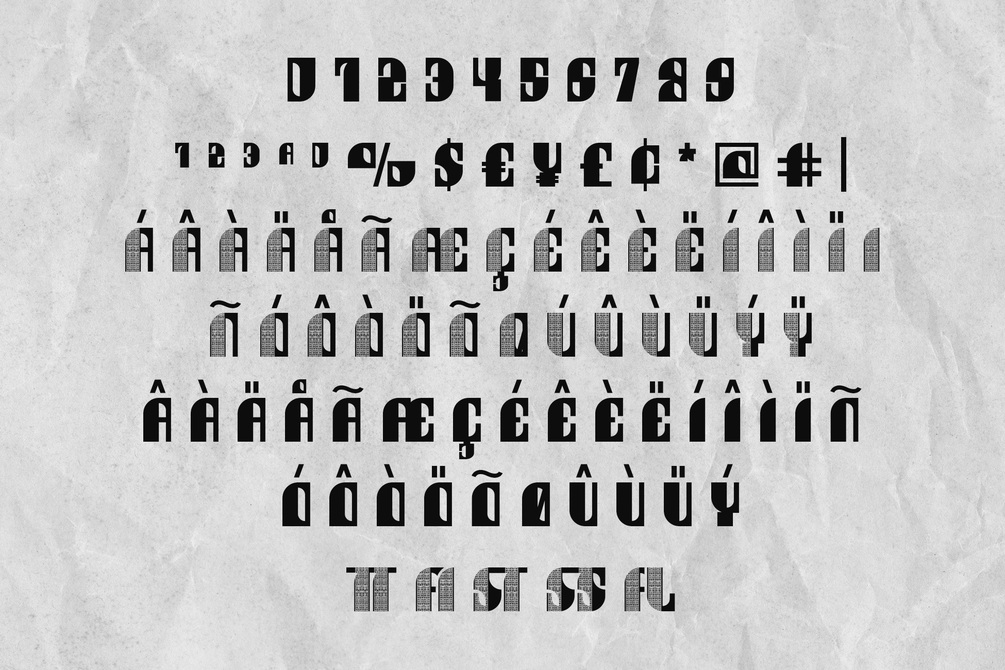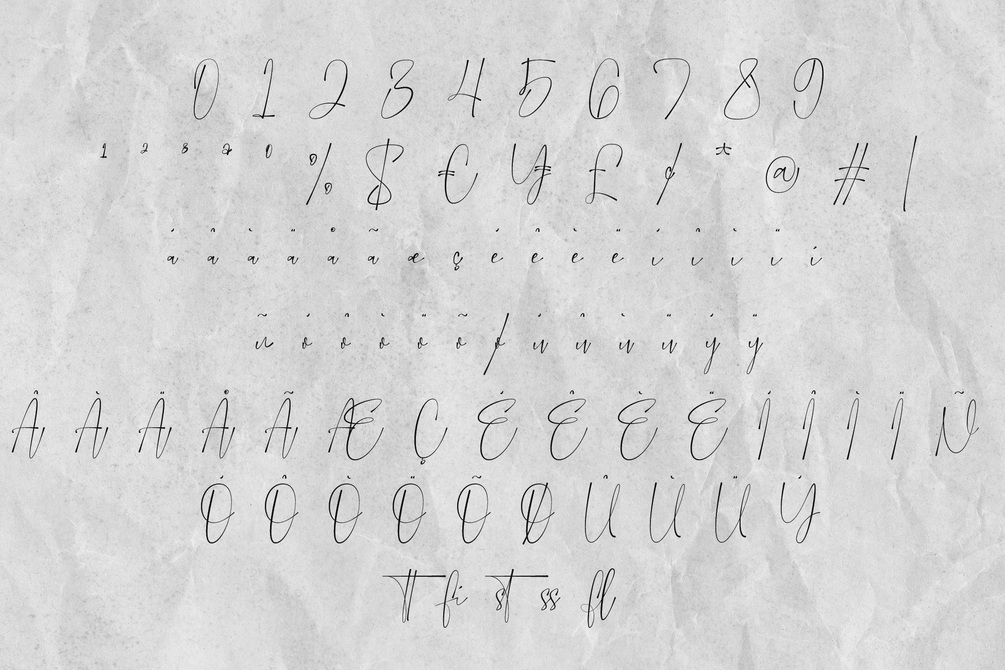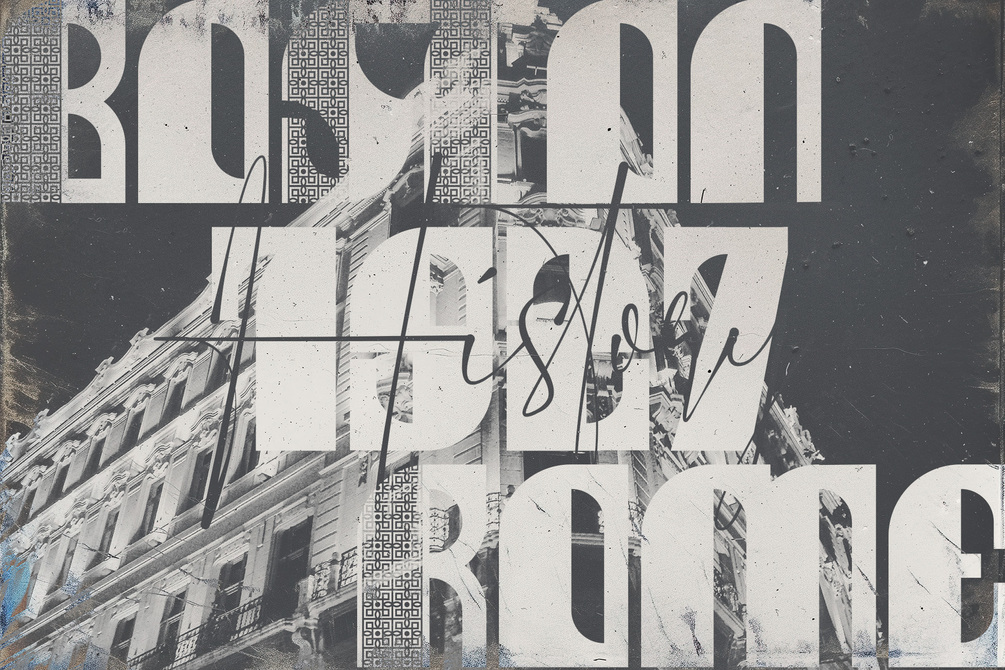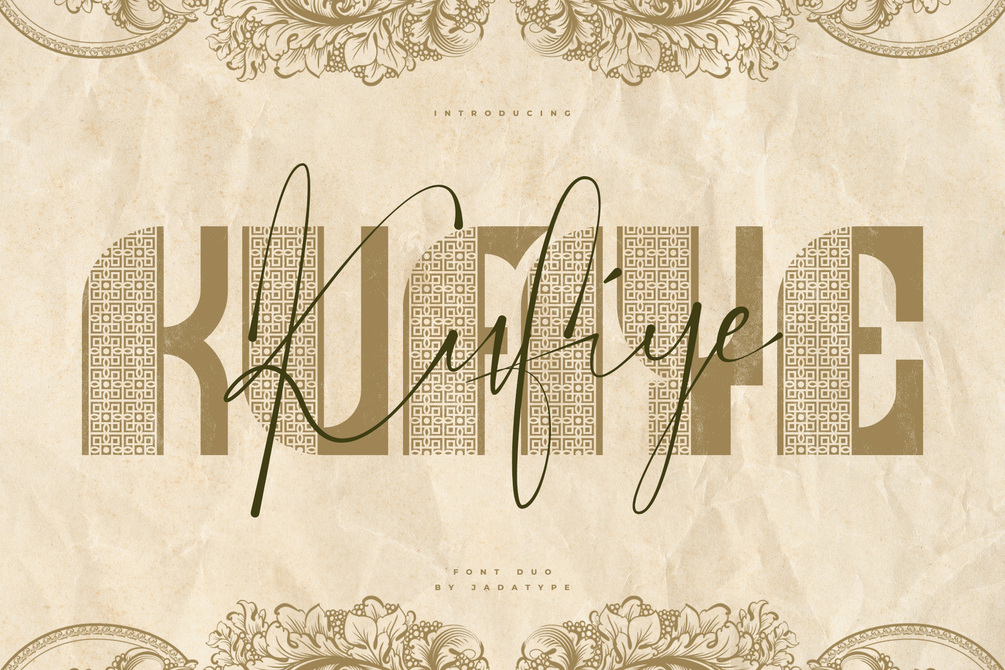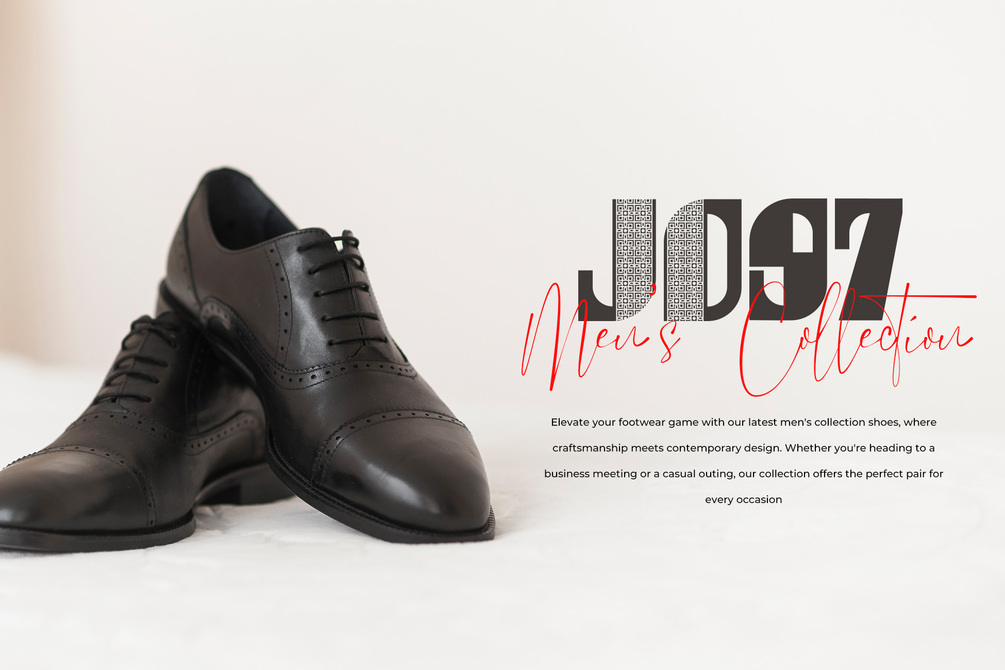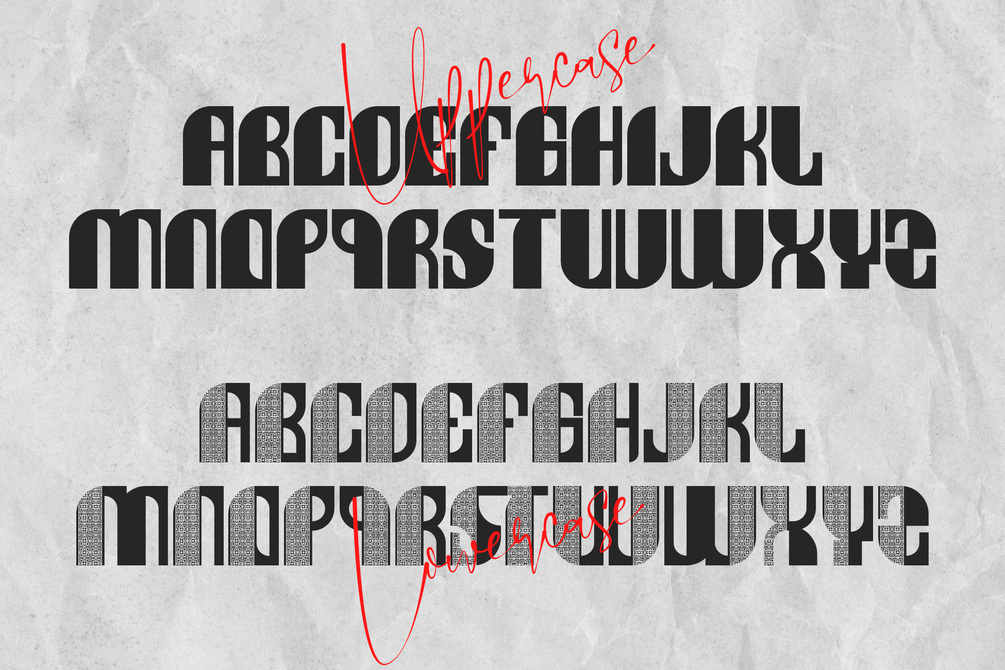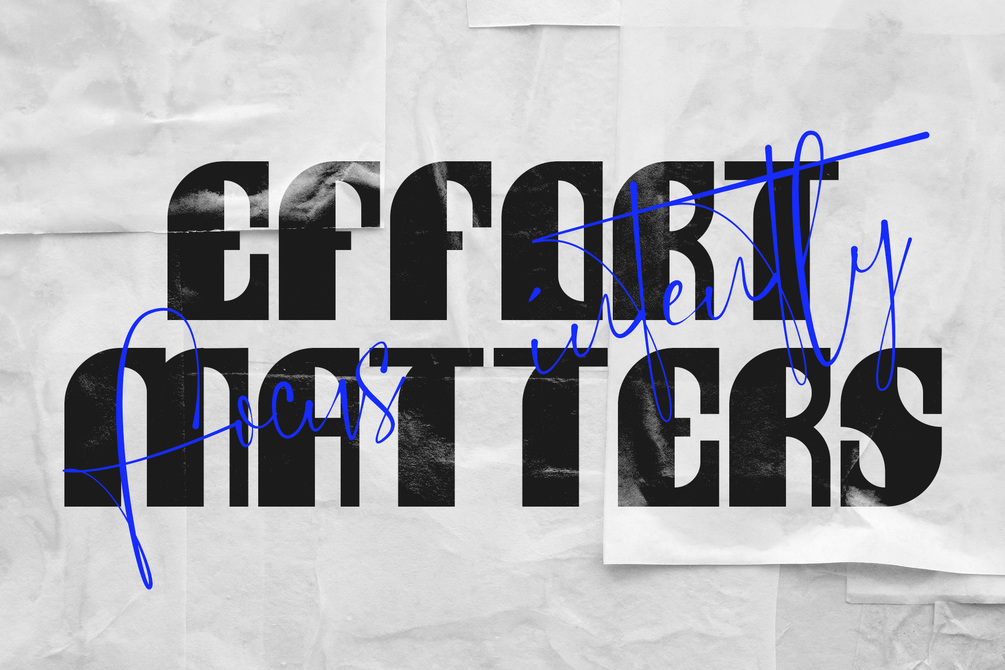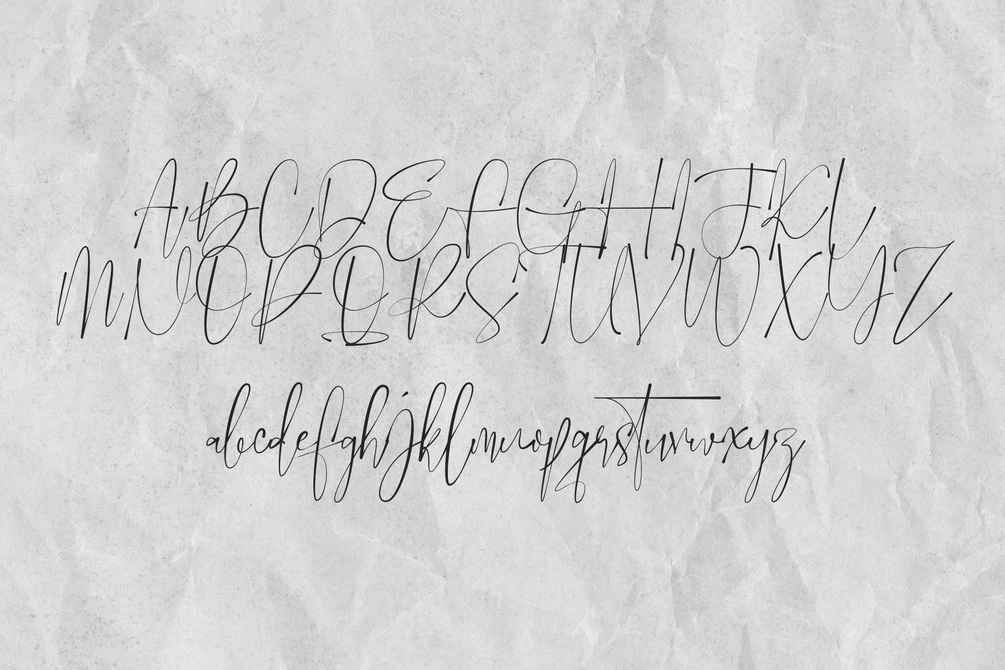
Kufiye Font Duo
Kufiye is Font Duo that comes with Display and Signature style. Suitable for product, Branding, social media, logotype and so on. contains standard English letters, numbers, punctuation, and several accents that support multilingualism.